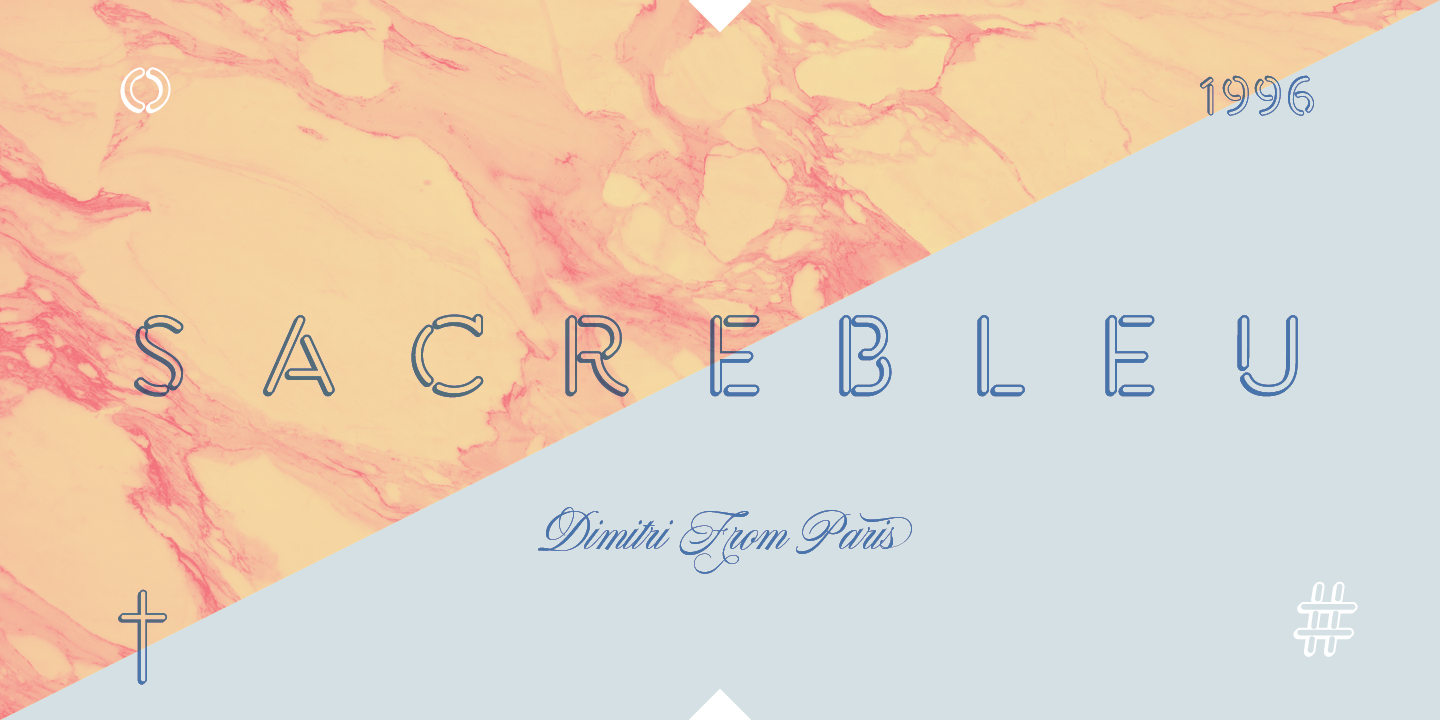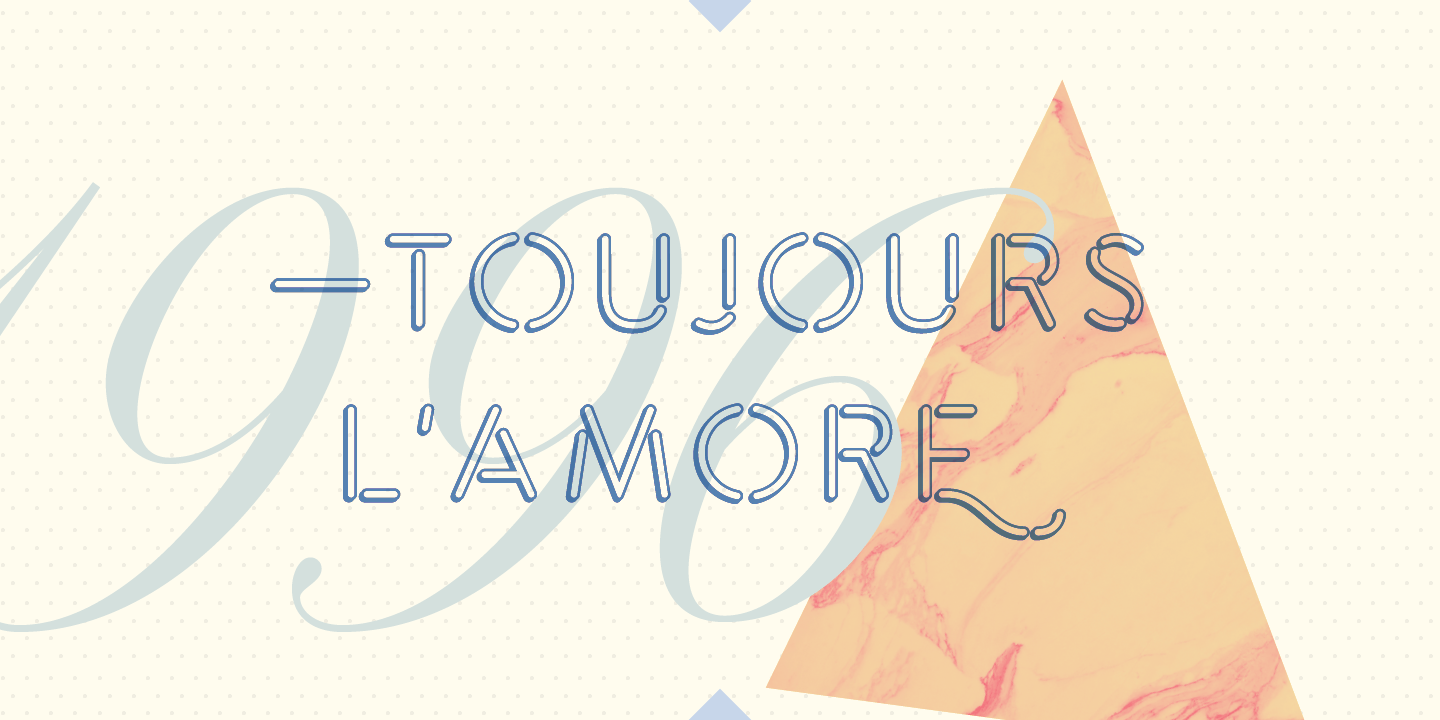
About Orbita
Orbita is a new playful display font. Based on Stencil creek skeleton and keeping its freshness and grace. The aim was to create a new version, dynamic and full of movement, so we came along with this idea of adding a pop up effect which creates a visual…